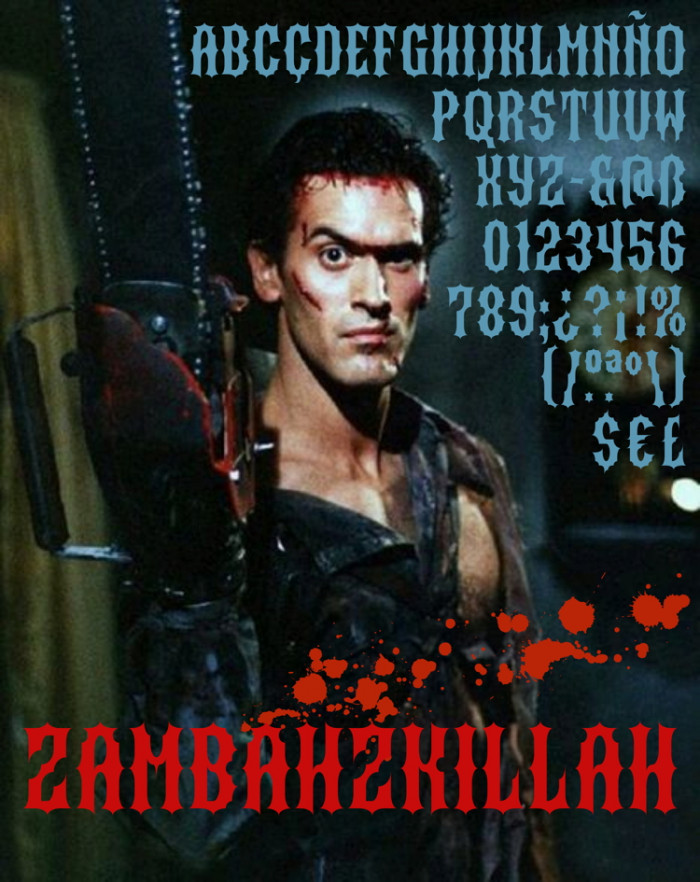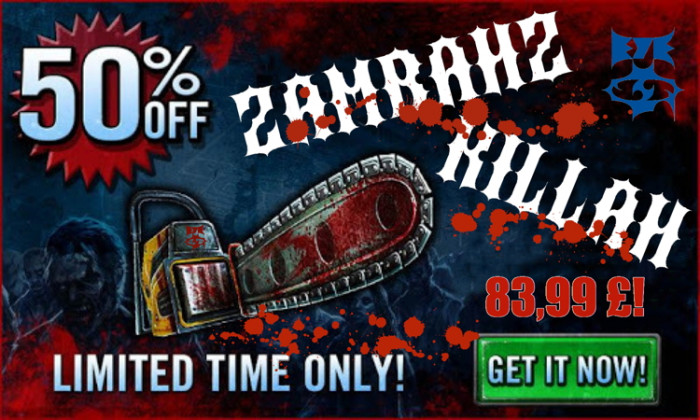
After zilverbullet (my last font for lycanthropes) here you are another special, this time is for... zombies! NB: Contains some alternatives to the UC (in the LC) and cyrillic set.
My zambahzkillah at work... (naturly it's a fake, you know, hehehe!).
@elmoyenique... Impressive font. You seem to have lots of fun with the text sampling images demoing the font, too.  ;)  Keep up the great work!
Nice! All curves in each letter add to the purposeful communication of the theme.
Like this font. This font is the embodiment of Colerophobia for me. I never had this, but I never perceived the clowns as funny.
In Ф I would like to have more white inside, rest cyrillic is cool.
@Dmitry Sychiov: Sorry about your coulrophobia. Done more white in the Ф, and thanks for the feedback.